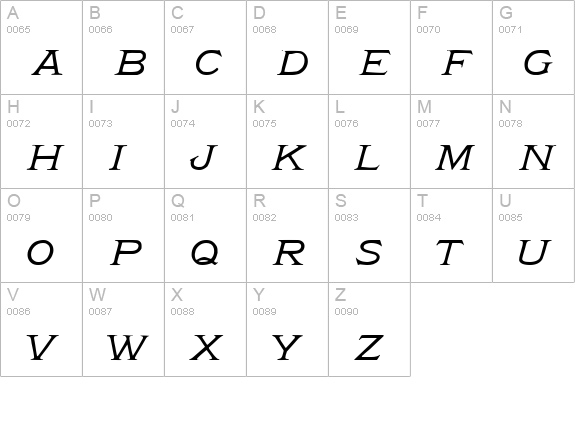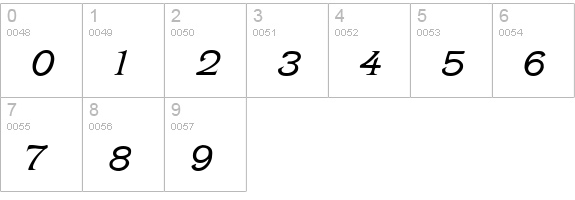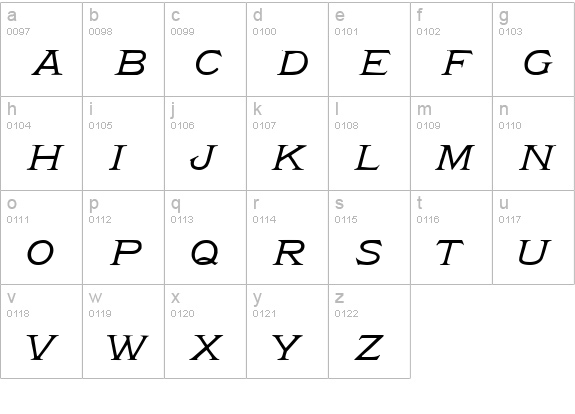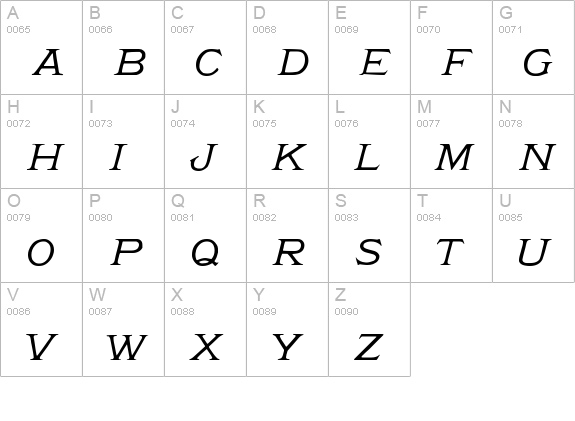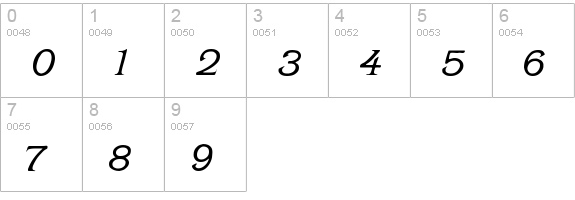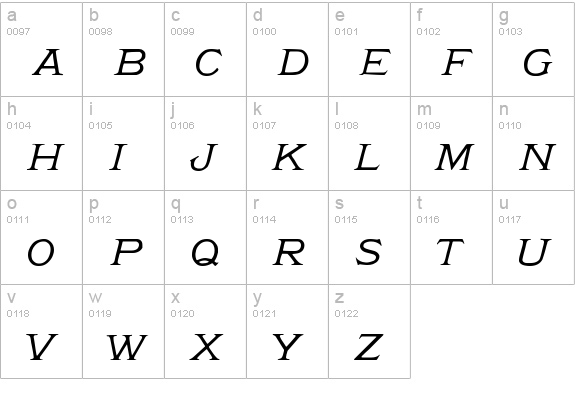
Introducing the exquisite Victoria HPLHS font, a timeless typeface that seamlessly blends elegance and sophistication. Crafted with meticulous attention to detail, this font is perfect for adding a touch of class to any design project. With its delicate curves and refined serifs, Victoria HPLHS exudes an air of refined refinement. Whether used for professional documents, invitations, or branding materials, this font will effortlessly elevate the visual appeal of any text. But the best part? Victoria HPLHS is completely free! Yes, you read that right. This exceptional font is available for download at FontsMarket.com, allowing you to enhance your designs without breaking the bank. Say goodbye to expensive font licenses and hello to creative freedom. With Victoria HPLHS at your disposal, you can explore endless possibilities and create breathtaking designs that capture attention and leave a lasting impression. Its versatile nature makes it suitable for a wide range of projects, from elegant wedding invitations to luxurious packaging designs. Immerse yourself in the world of Victoria HPLHS and witness your designs transform into works of art. Download this exquisite font today at FontsMarket.com and embark on a journey of creativity and visual excellence.